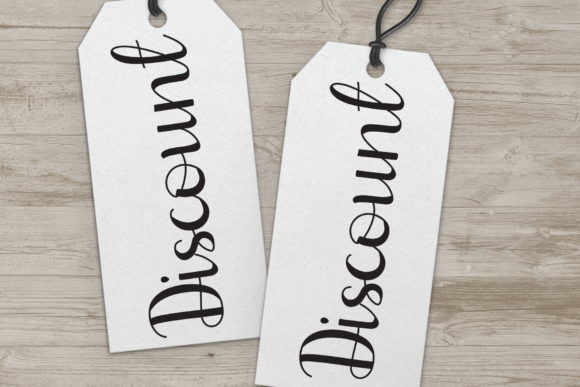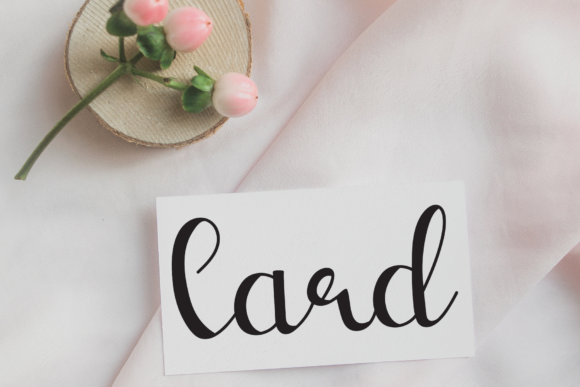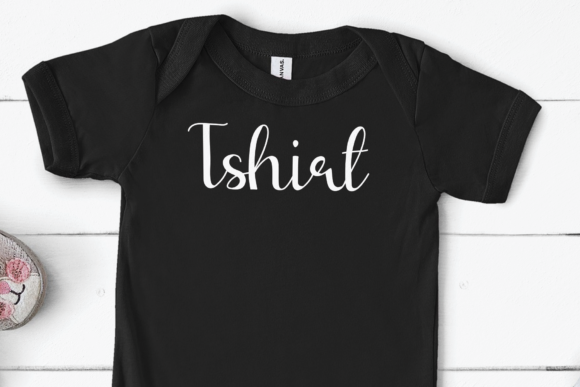
Introducing Beard Font: Elevate Your Designs with Elegance and Sophistication
In the world of typography, a well-crafted font can make all the difference in elevating your design projects from ordinary to extraordinary. If you’re a designer, craftsperson, or simply someone who appreciates the art of beautiful lettering, you’re in luck. Beard Font is an elegant script font that brings a contemporary feel and perfect form to your creations. With its balanced and varied strokes, this font is designed to enhance the beauty of your projects and leave a lasting impression.
The Characteristics of Beard Font
So, what sets Beard Font apart from other fonts in the market? Here are some of its key characteristics:
- Contemporary feel: Beard Font boasts a modern and sleek design that is sure to appeal to those who appreciate clean lines and minimalist aesthetics.
- Balanced and varied strokes: The font’s strokes are carefully crafted to be neither too thin nor too bold, creating a perfect balance that adds visual interest to your designs.
- Elegant script: Beard Font features a beautiful script style that adds a touch of sophistication and elegance to any project.
- Perfect form: The font’s form is meticulously designed to ensure that it looks great in various contexts, from headings and titles to body text and more.
Why Choose Beard Font?
With so many fonts available, why should you choose Beard Font for your design projects? Here are just a few compelling reasons:
- Versatility: Beard Font is suitable for a wide range of design applications, from branding and advertising to packaging and digital media.
- Readability: The font’s clear and legible design ensures that your message is conveyed effectively, even at smaller font sizes.
- Uniqueness: Beard Font’s distinctive style sets it apart from more common fonts, giving your designs a unique and memorable edge.
Using Beard Font in Your Design Projects
So, how can you incorporate Beard Font into your design projects? Here are a few ideas to get you started:
- Branding and logos: Use Beard Font to create stunning logos and branding materials that exude elegance and sophistication.
- Headings and titles: Add a touch of glamour to your headings and titles with Beard Font’s beautiful script style.
- Packaging design: Elevate your packaging design with Beard Font’s unique and eye-catching style.
- Digital media: Use Beard Font to add a professional touch to your digital media, including social media graphics, presentations, and more.
In conclusion, Beard Font is an exceptional script font that offers a perfect blend of elegance, sophistication, and versatility. With its contemporary feel, balanced and varied strokes, and beautiful script style, this font is sure to enhance the beauty of your design projects and leave a lasting impression on your audience. Whether you’re a designer, craftsperson, or simply someone who appreciates great typography, Beard Font is definitely worth checking out.